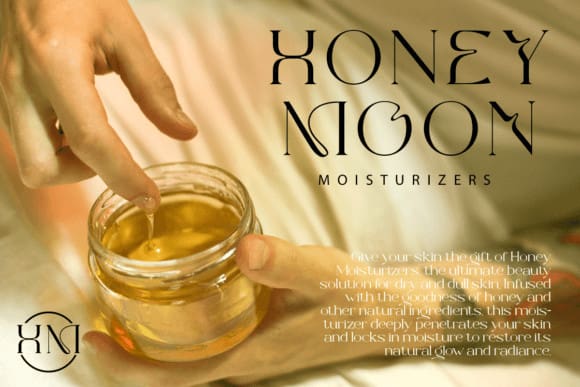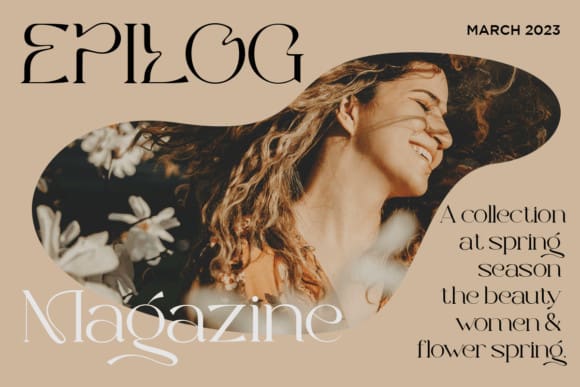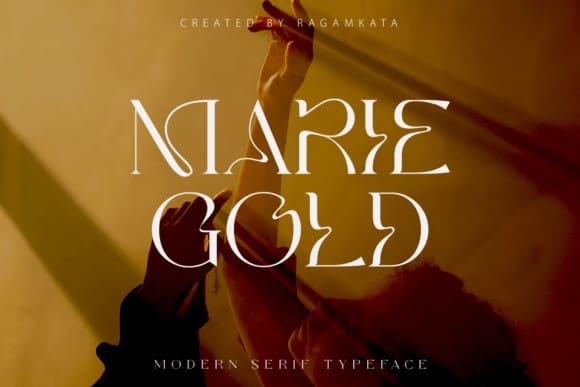
Mariegold Font
Mariegold Font rich serif with letters that seem modern unique serif typefaces. Perfect for branding, logos, invitations, mastheads, and more. Mariegold has 15 ligatures on Uppercase and Lowercase thus making it look more attractive and unique